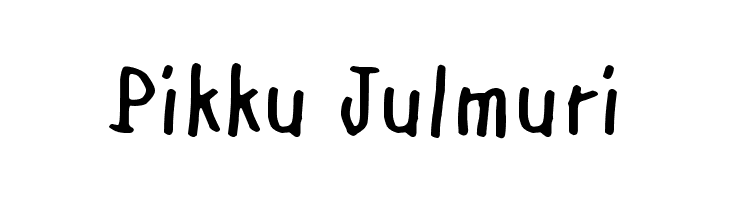
• Pikku Julmuri
A playful, handwritten font with irregular strokes and a casual appearance.
• Pikku Julmuri
A playful, handwritten font with irregular, whimsical letterforms.